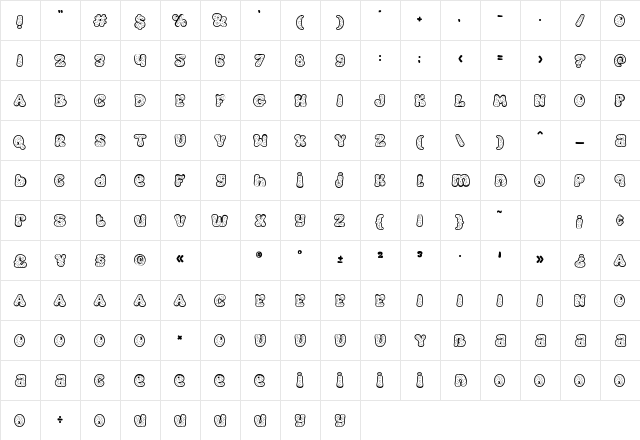
Complete Cold Snowflake Four Regular glyph index. Displaying only characters natively supported by Cold Snowflake Four Regular font.
Cold Snowflake Four is a composed and adaptable typeface that performs quietly and consistently across a wide range of design contexts.